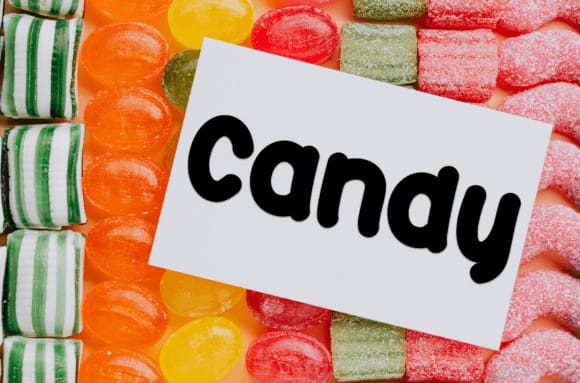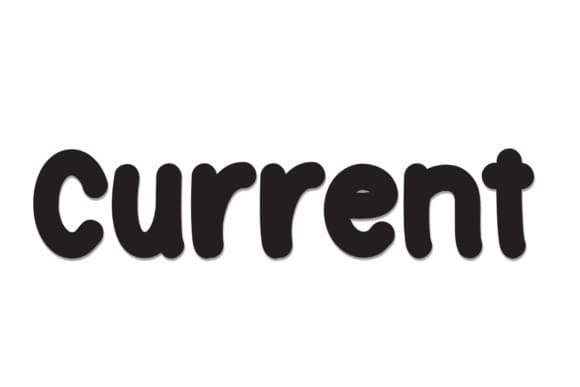
Current Playful Font
Current Playful Font is a sweet and friendly handwritten display font. Cute and fun, this font is ideal for writing wedding invitations, cards, or any other design that might need a creative touch!